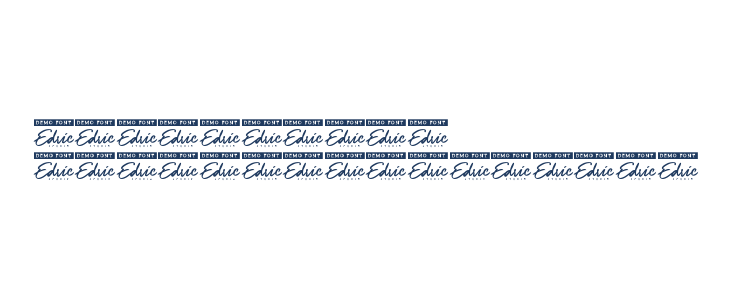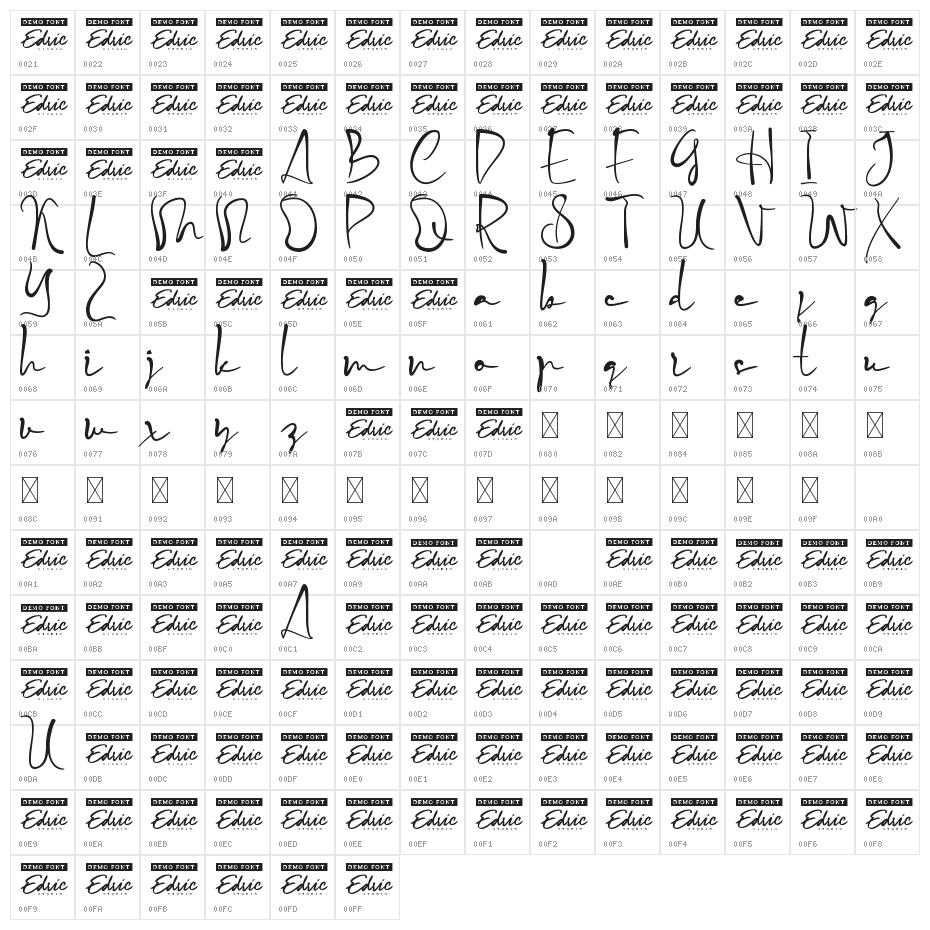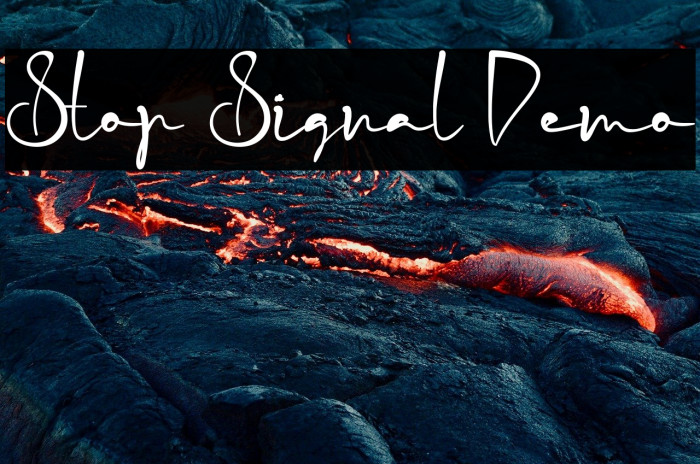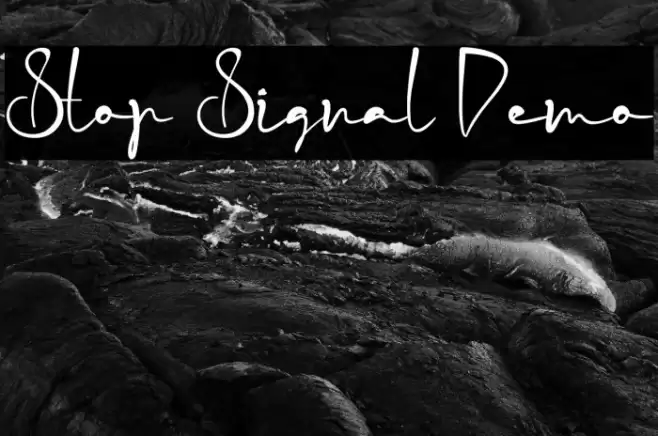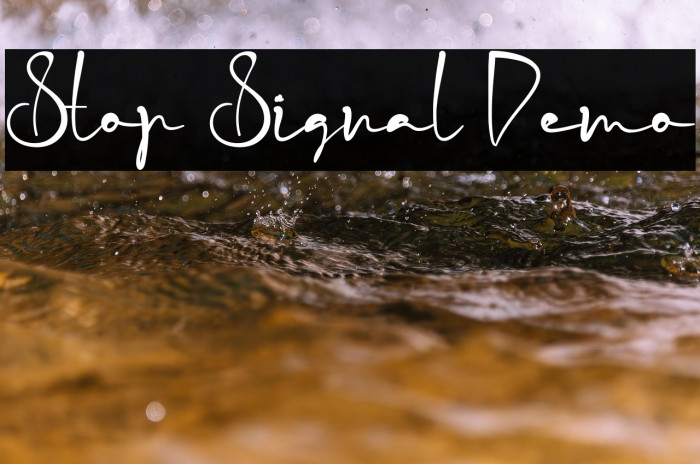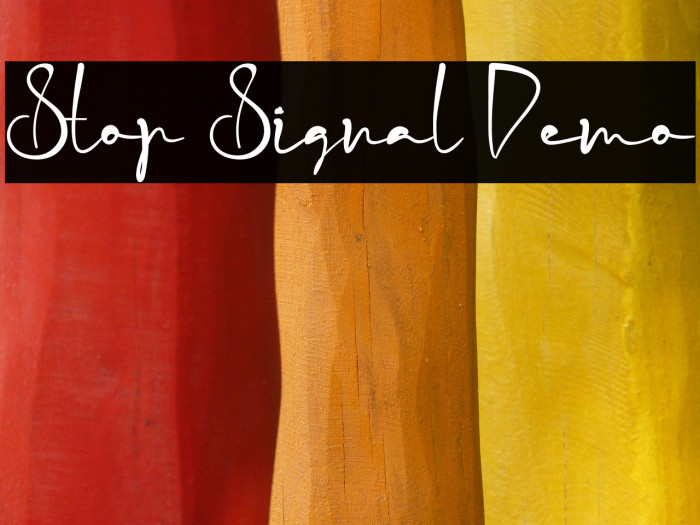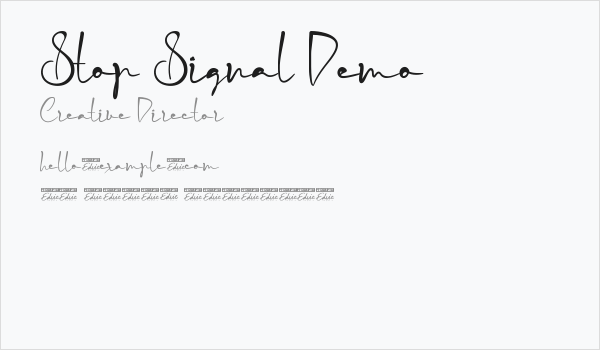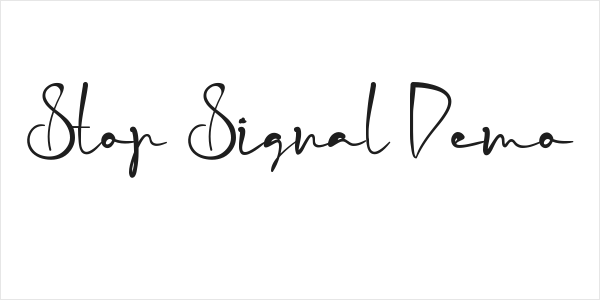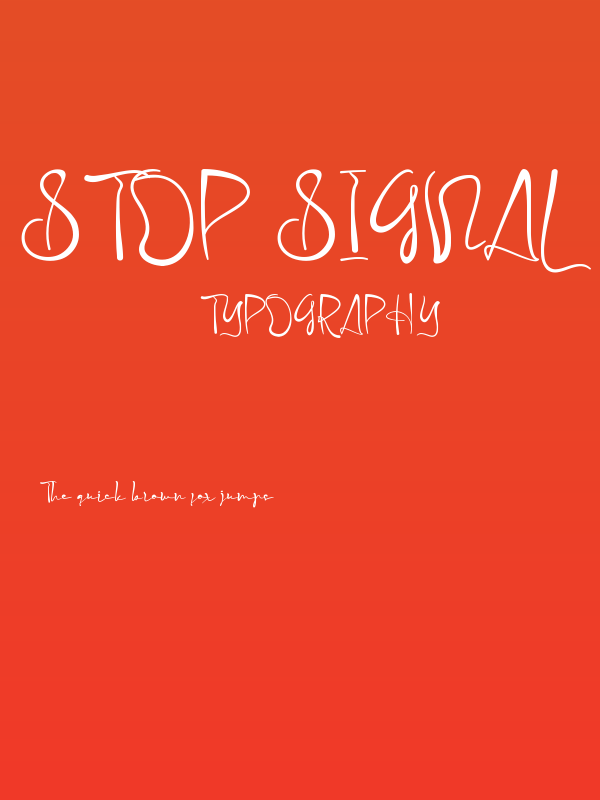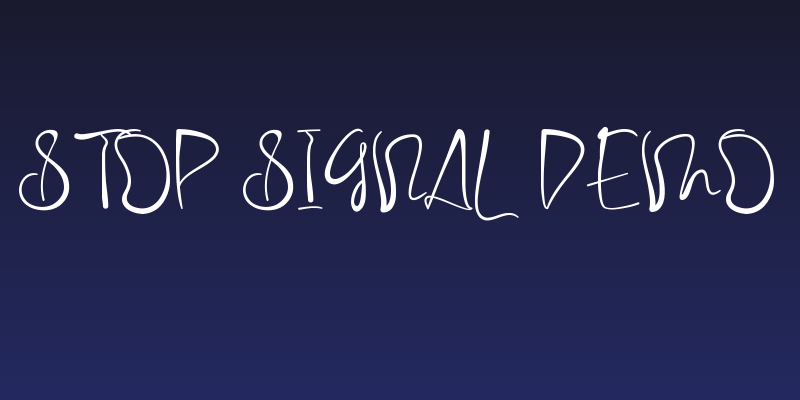
Stop Signal Demo Font
Stop Signal Demo Description
This font features a dynamic and expressive handwritten style, characterized by its fluid and flowing letterforms. The uppercase letters exhibit a playful and artistic flair, with varying stroke widths that add a sense of movement and energy. The lowercase letters maintain a consistent style, complementing the uppercase with their elegant curves and loops. The overall design is both modern and casual, making it suitable for creative and informal applications. The font includes a full set of numerals and a selection of special characters, ensuring versatility in usage.
| Proposed Projects | Ideal for creative projects such as greeting cards, invitations, branding, and social media graphics. |